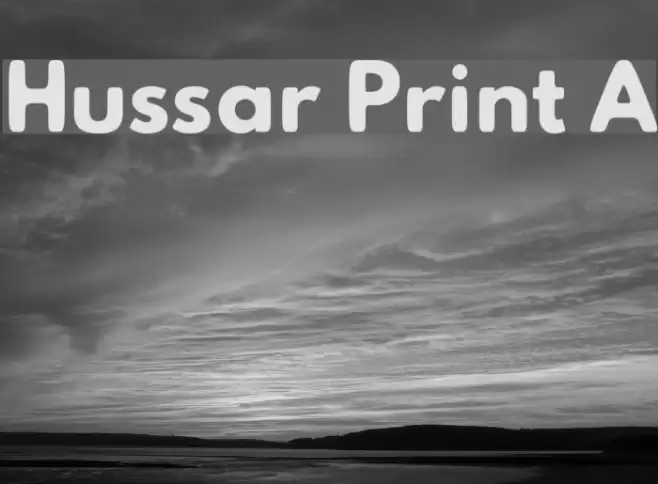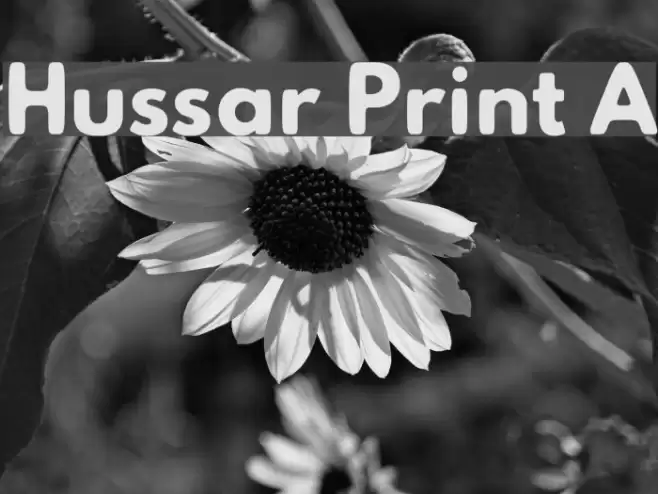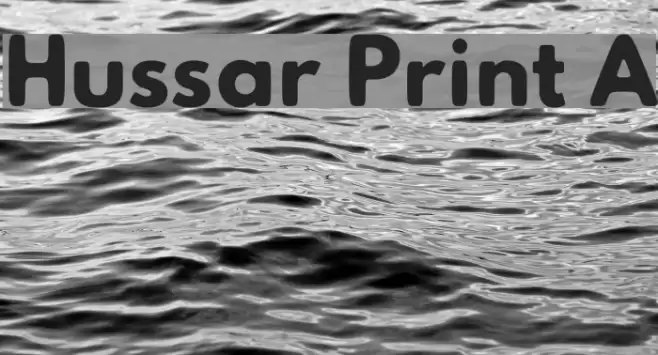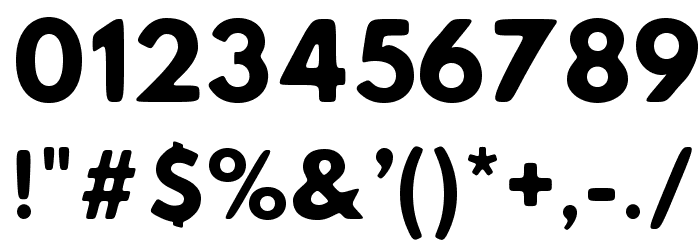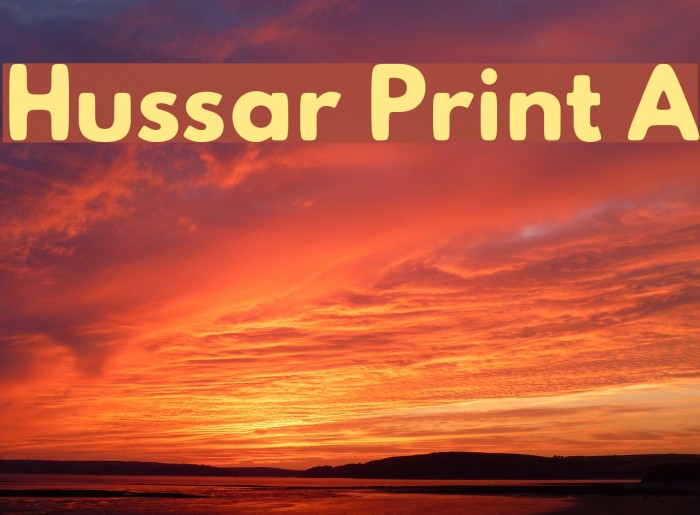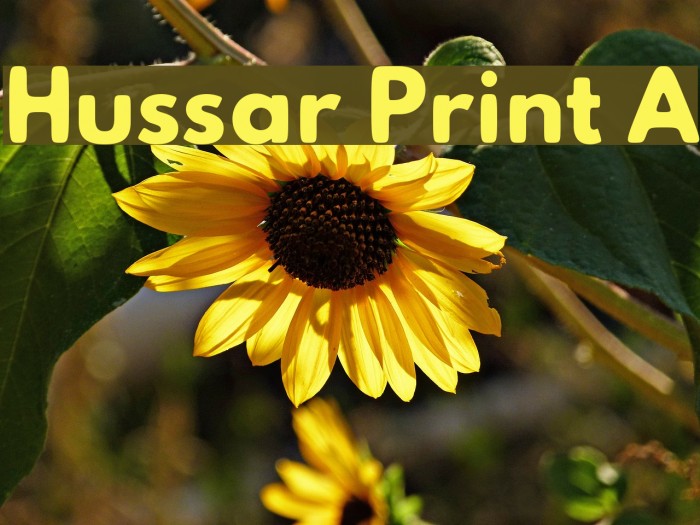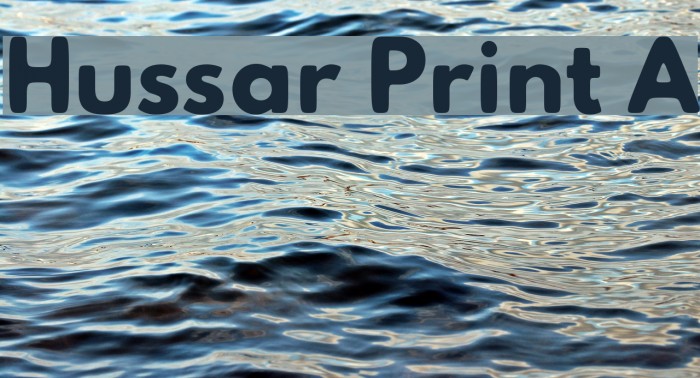
Hussar Print A
This font features a bold and rounded style with a playful and approachable appearance. The characters are uniformly thick, giving it a strong presence, while the rounded edges soften its overall look, making it friendly and inviting. The uppercase and lowercase letters maintain a consistent style, with a slight variation in height and width that adds to its charm. The numbers and special characters are designed to match the playful aesthetic, ensuring a cohesive look across all text elements. This font is well-suited for projects that require a fun and engaging visual impact.
A bold, rounded font with a playful and approachable style.
- Proposed Projects: Ideal for children's books, playful branding, posters, and social media graphics.
- Overall Style: Playful, Friendly
- Use Case: Headlines, Logos, Posters